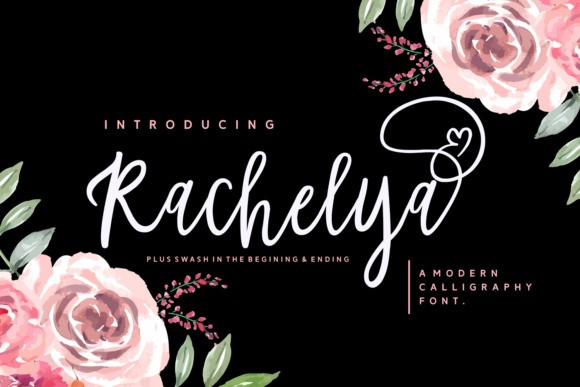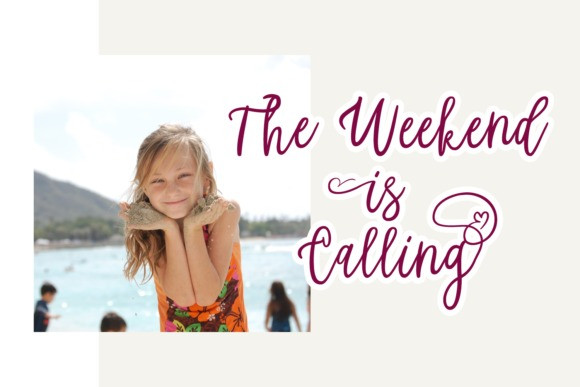
Rachelya Handwritten Font
Rachelya features sweet swashes and an irregular baseline. These features give this unique script an incredibly authentic look!